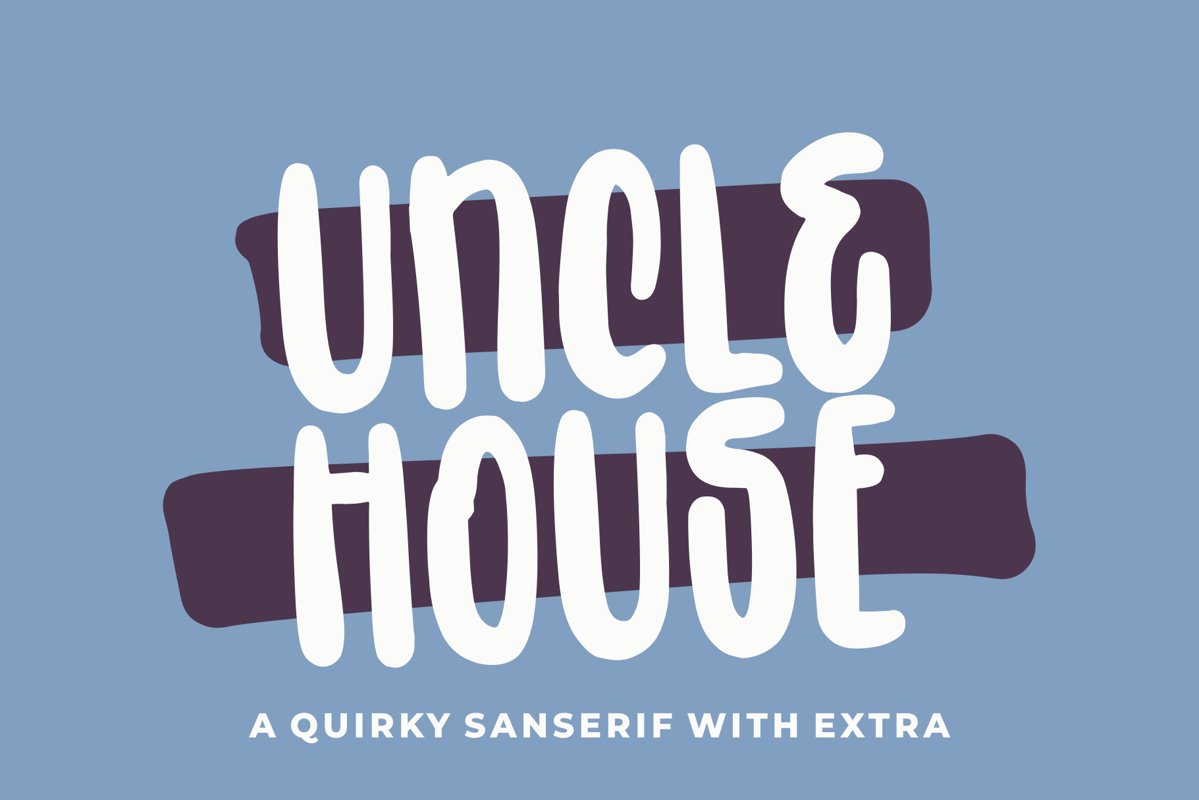
Uncle House
Uncle House Extra
Uncle House
Uncle House is a quirky sanserif font with Bonus Dingbats
This font is perfect for quotes, shirt designs, mug designs, branding, overlay image,  blogs, logos, invitations, and more!